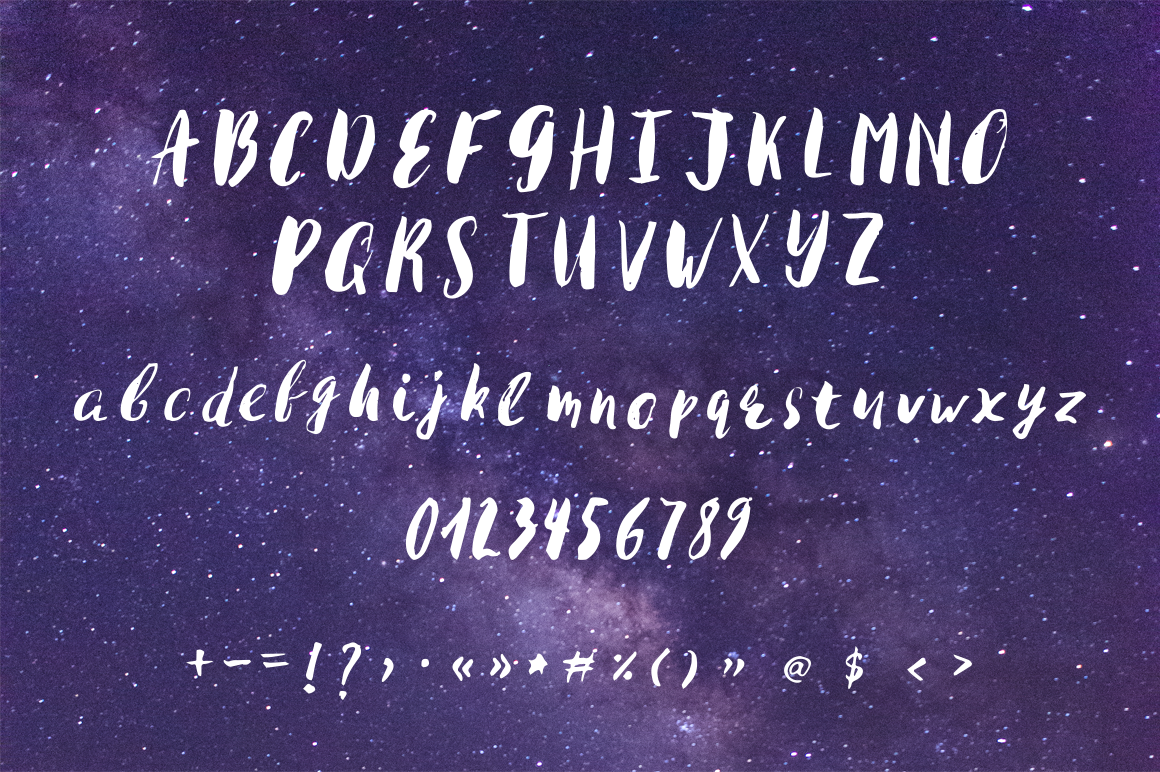
Kosmos Brush Font
Kosmos – modern brush script
Kosmos Brush Font designed by mcherevan, this is a premium font, are sold on creativemarket, but it was great, it is free today for download. KOSMOS – unique blend of grunge and modern font. This font ideal for wedding cards, event, invitation, escort card, menus, display, logos, bunners, sale tags, custom address, stamps, packaging, greeting card, and more else.